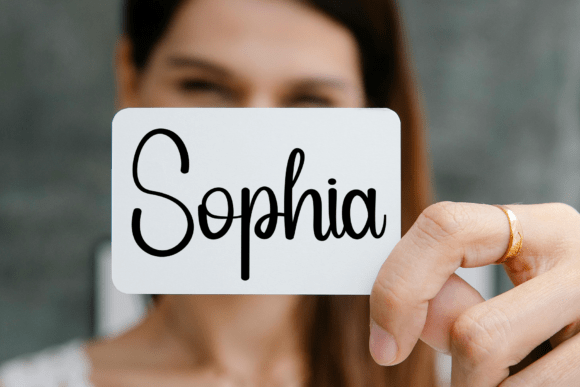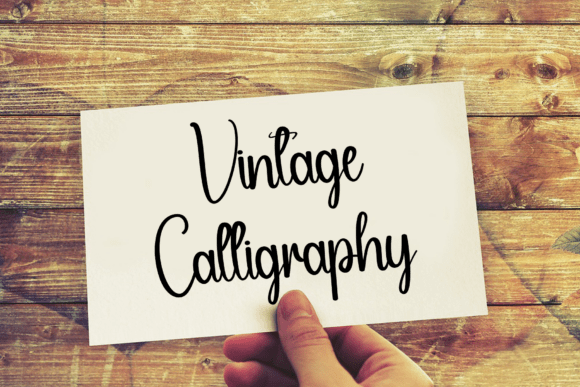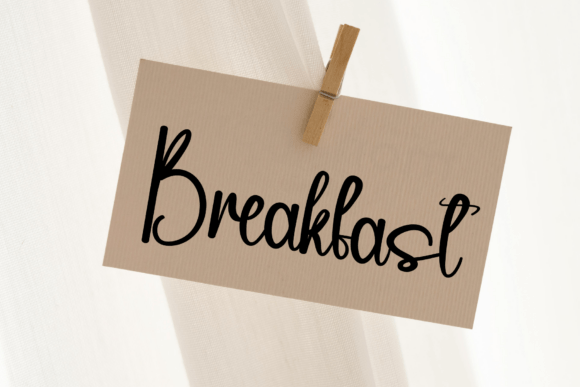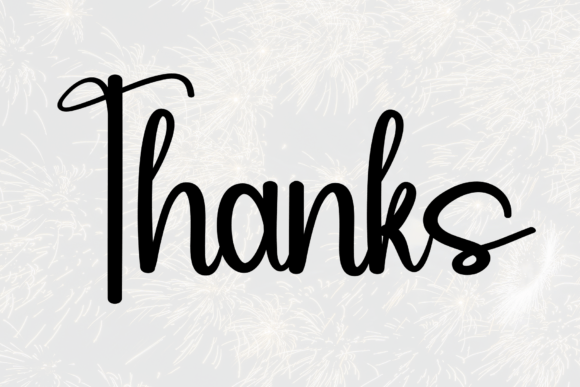
Introduction to Newyear Furniture Font
As designers, we’ve all been there – staring at a blank canvas, waiting for inspiration to strike. It’s in these moments that we search for the perfect font to bring our creative project to life. Enter the Newyear Furniture Font, a stunning modern calligraphy script that embodies the perfect balance between elegance and whimsy.
With its tall x-height and slightly irregular baseline, this beautiful script exudes a natural, personalized movement that’s reminiscent of authentic penmanship. The fine, thin monoline strokes and charming connecting loops create a sophisticated yet soft and inviting appeal that’s sure to elevate any design.
Whether you’re working on a high-end wedding invitation, a jewelry branding project, or a personal blog, the Newyear Furniture Font is an exquisite choice that’s sure to make your design stand out. And the best part? This high-quality font is available for free download, making it an invaluable resource for designers looking to take their creative projects to the next level.
Key Features of Newyear Furniture Font
- Unique, modern design with a transparent background, perfect for adding a touch of elegance to any project
- Designed to be versatile and adaptable, making it suitable for a variety of design applications, from branding to publishing
Honest Review: Newyear Furniture Font
I recently stumbled upon the Newyear Furniture Font, and I must say, it’s a great addition to my design resource library. This font has a lot to offer, especially when it comes to creating a high-quality and visually appealing design for my next creative project.
Here are some of the things that work well with the Newyear Furniture Font:
- ✨ High-quality design that’s perfect for modern and minimalist designs
- ✨ Easy to read, even on a transparent background
- ⚠️ Limited customization options, which might not be ideal for designers who like to experiment with different font styles
- ⚠️ Not suitable for large-scale designs, as it can become overwhelming when used extensively
Overall, I’m quite impressed with the Newyear Furniture Font. It’s a great resource for designers who are looking for a high-quality font that’s easy to use and versatile. While it may have its limitations, it’s definitely worth considering for your next creative project.
The Newyear Furniture Font is a high-quality, versatile font perfect for various creative projects. It features a transparent background and is available for free download, making it an excellent addition to any design resource.
For optimal results, use the Newyear Furniture Font in conjunction with other design elements, such as images and graphics. Experiment with different font sizes, colors, and arrangements to find the perfect combination for your project.
The Newyear Furniture Font is ideal for various creative projects, including brochures, flyers, posters, and social media graphics. Its high-quality design and transparent background make it perfect for use in both digital and print media.